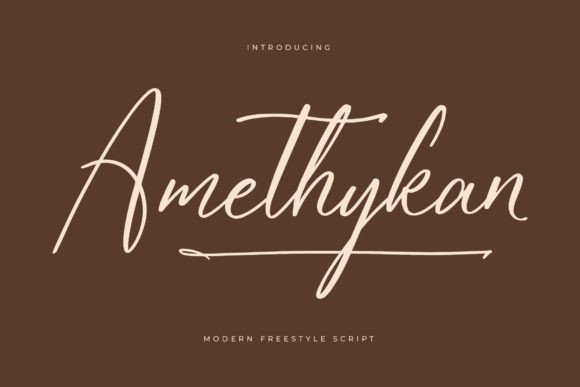
Introducing Amethykan Font: The Epitome of Elegance and Sophistication
In the realm of typography, few fonts have managed to capture the essence of elegance and sophistication as effectively as Amethykan. This charming script font has been designed to evoke a sense of refinement and romance, making it an ideal choice for a wide range of applications, from invitations and branding to elegant designs. In this article, we will delve into the world of Amethykan Font, exploring its unique characteristics, and the ways in which it can elevate your projects to new heights of sophistication.
The Design Philosophy Behind Amethykan
Amethykan Font is the brainchild of a meticulous design process aimed at creating a typeface that embodies the perfect blend of fluidity and delicacy. Its creator sought to craft a font that not only exudes elegance but also resonates with a sense of warmth and approachability. The result is a script font that boasts fluid strokes and delicate curves, meticulously designed to infuse any project with a touch of sophistication and charm.
Key Features of Amethykan Font
- Fluid Strokes: One of the defining characteristics of Amethykan Font is its fluid strokes, which contribute to its elegant and refined appearance. These strokes are designed to flow seamlessly, creating a sense of continuity and harmony.
- Delicate Curves: The delicate curves of Amethykan add to its charm, providing a touch of softness and warmth. These curves are carefully crafted to ensure that the font remains legible while still conveying a sense of sophistication.
- Elegant Ligatures: Amethykan Font features elegant ligatures that enhance its aesthetic appeal. These ligatures are designed to create a seamless connection between letters, further contributing to the font’s refined and elegant appearance.
- Versatile: Despite its elegant appearance, Amethykan Font is remarkably versatile. It can be used for a wide range of applications, from formal invitations to branding and advertising.
Applications of Amethykan Font
Amethykan Font’s unique blend of elegance and sophistication makes it suitable for various applications. Here are some of the ways you can use Amethykan to elevate your projects:
- Invitations: Whether you’re planning a wedding, a formal gala, or any other special event, Amethykan Font is an excellent choice for your invitations. Its elegant appearance sets the tone for a sophisticated and memorable event.
- Branding: For businesses looking to establish a refined and elegant brand identity, Amethykan Font can be a valuable asset. It can be used for logos, packaging, and marketing materials to create a cohesive and sophisticated brand image.
- Elegant Designs: Amethykan Font can also be used in various design projects that require a touch of elegance and sophistication. From advertising campaigns to editorial design, Amethykan can help you create visually stunning and refined designs.
The Benefits of Using Amethykan Font
Using Amethykan Font in your projects offers several benefits, including:
- Timeless Appeal: Amethykan Font’s classic design ensures that it remains timeless, unaffected by fleeting trends. This means that your projects will continue to look elegant and sophisticated for years to come.
- Enhanced Readability: Despite its elegant appearance, Amethykan Font is designed to be highly legible. This ensures that your message is conveyed clearly and effectively, without compromising on aesthetics.
- Unique Identity: By using Amethykan Font, you can create a unique and distinctive identity for your brand or project. Its elegant appearance helps you stand out from the crowd and make a lasting impression on your audience.
Tips for Using Amethykan Font Effectively
To get the most out of Amethykan Font, consider the following tips:
- Pair with Complementary Fonts: When using Amethykan Font, consider pairing it with complementary fonts to create visual interest. A sans-serif font can provide a nice contrast to Amethykan’s elegant script.
- Adjust Letter Spacing: Adjusting the letter spacing can help enhance the appearance of Amethykan Font. Experiment with different spacing options to find the one that works best for your project.
- Use it Sparingly: While Amethykan Font is elegant and sophisticated, it’s best used sparingly. Consider using it for headlines or key messages to create a lasting impression.
Amethykan Font is a charming script font that brings a touch of elegance and sophistication to any project. Its fluid strokes, delicate curves, and elegant ligatures make it an ideal choice for invitations, branding, and elegant designs. With its timeless appeal, enhanced readability, and unique identity, Amethykan Font is sure to captivate audiences and leave a lasting impression. By following the tips outlined in this article, you can use Amethykan Font effectively and elevate your projects to new heights of sophistication.
- What is Amethykan Font? Amethykan Font is a charming script font designed to evoke a sense of elegance and sophistication.
- What are the key features of Amethykan Font? Amethykan Font features fluid strokes, delicate curves, elegant ligatures, and a versatile design.
- How can I use Amethykan Font? Amethykan Font can be used for invitations, branding, elegant designs, and various other applications where a touch of sophistication is desired.